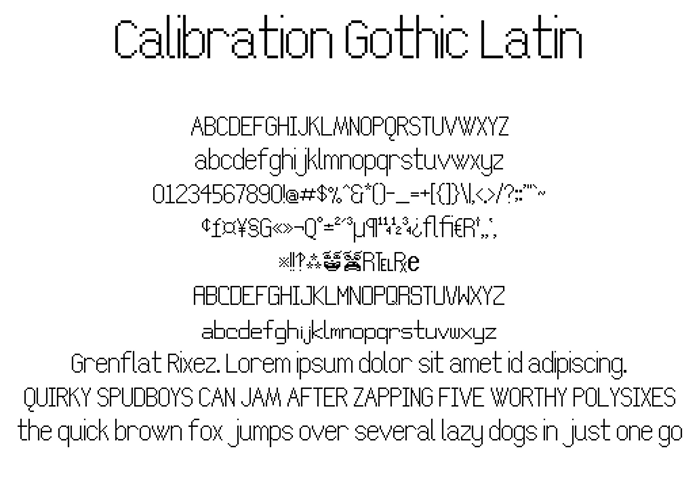
Calibration Gothic NBP Latin Font
A pixel font I designed for a project at work (how my boss found out I make fonts is still a mystery). Based roughly on Calibri, Univers, and Helvetica.
Contains most of the Latin characters in the basic multilingual plane (version 1.2 will have more extended Latin)
Alternate G, Q, and R can be found at U+00A9, 00AE, and 2122 (copyright, registered, and trademark)
Also has an entire alternate alphabet in the fullwidth block.
The 2 Faces at U+2117 and U+2120 replace the company logo (which also makes it enough of an edit to make me the copyright holder again! Yay, corporate feudal state! :P